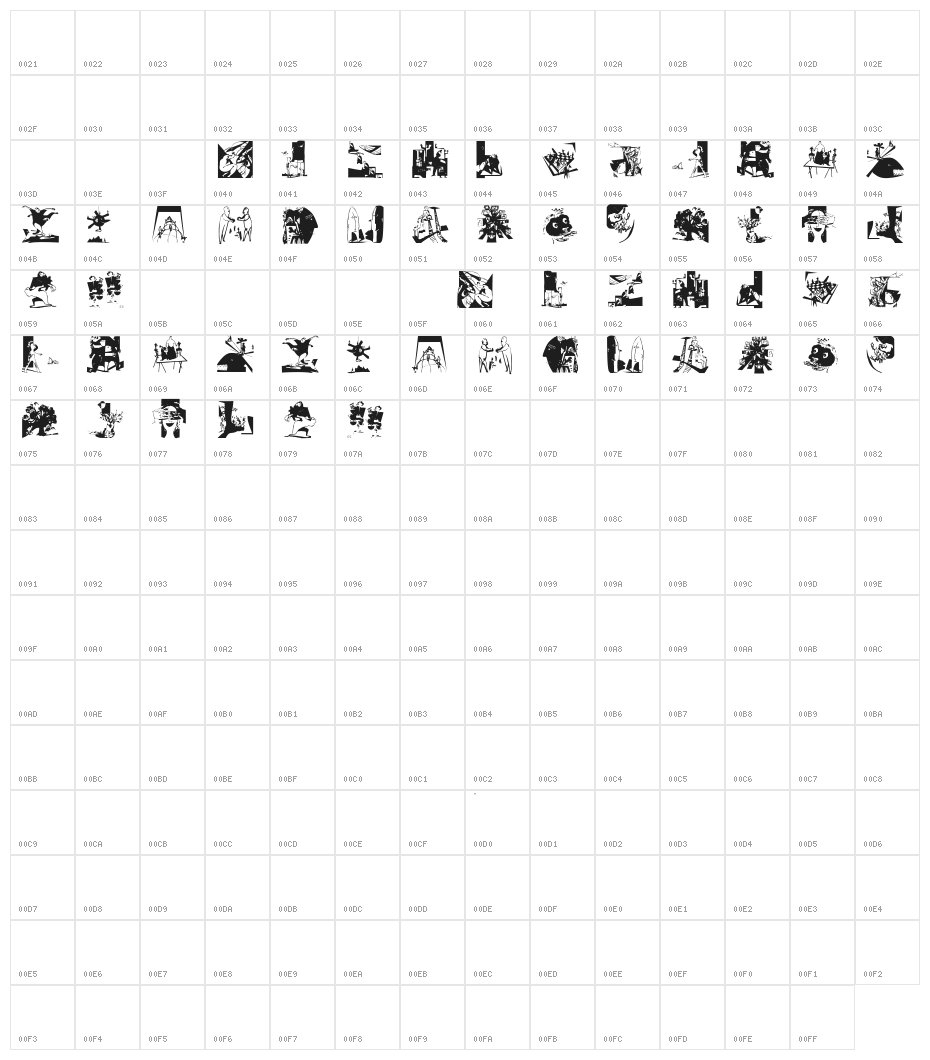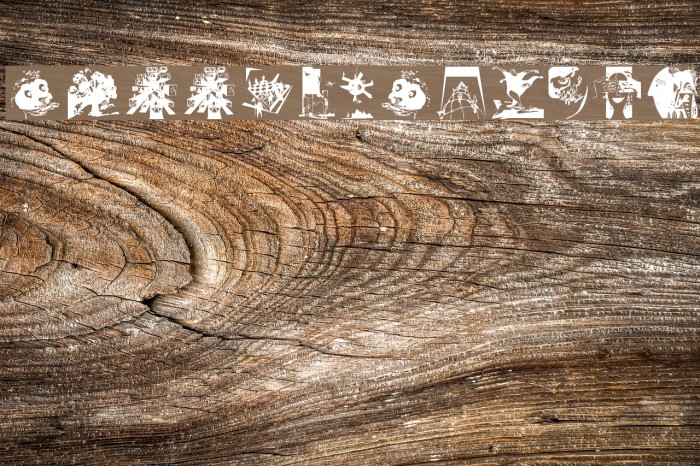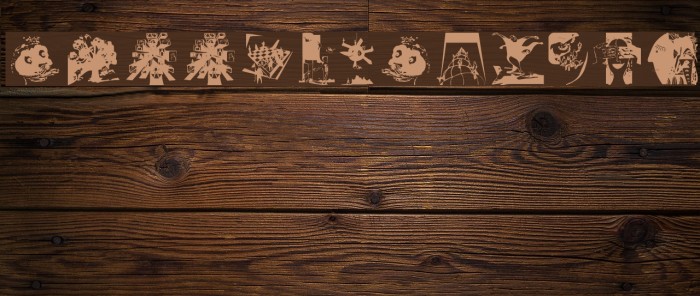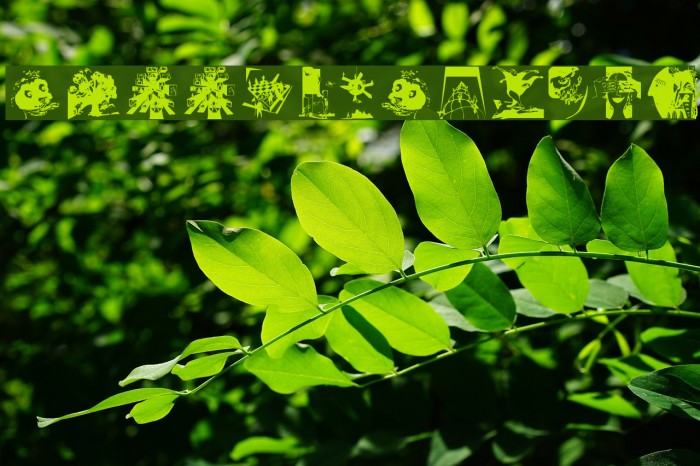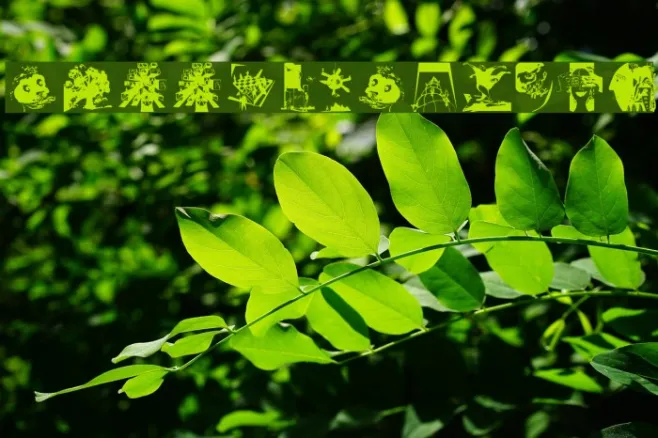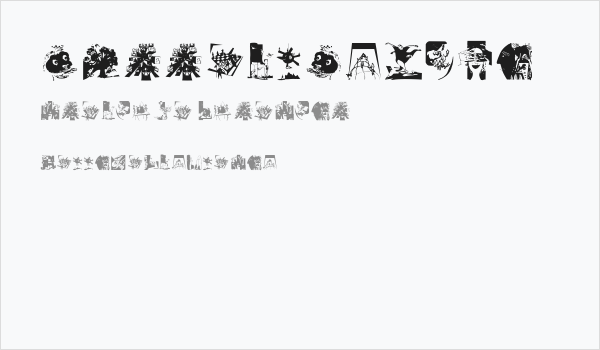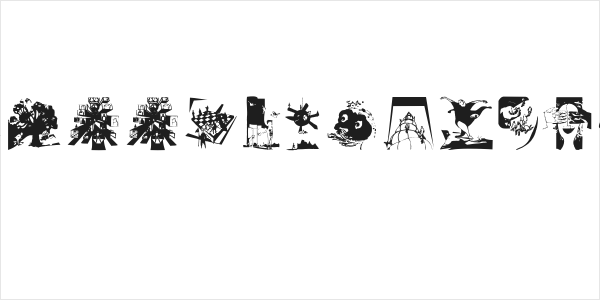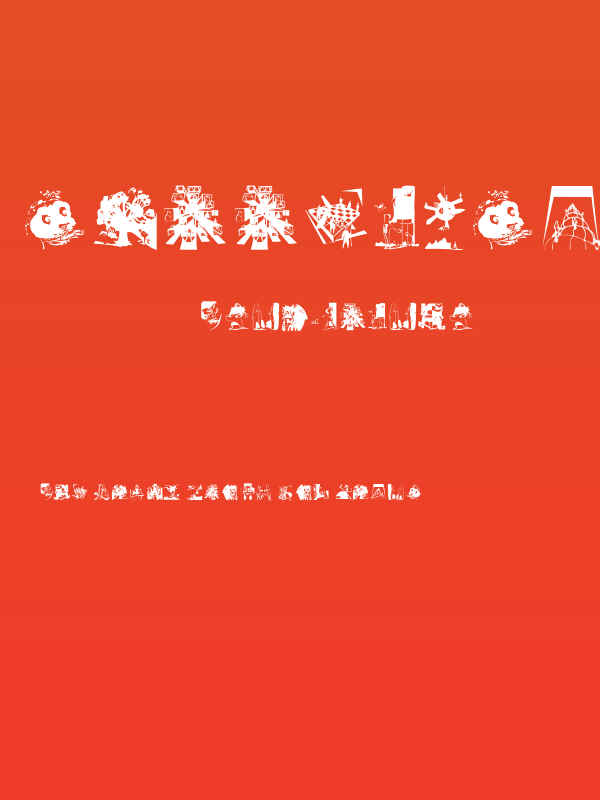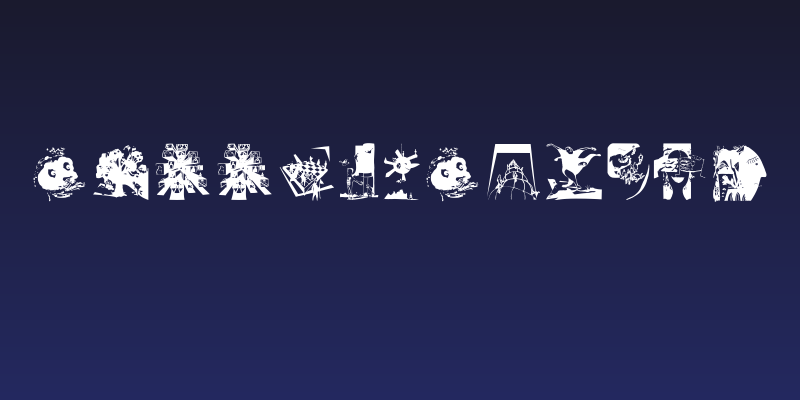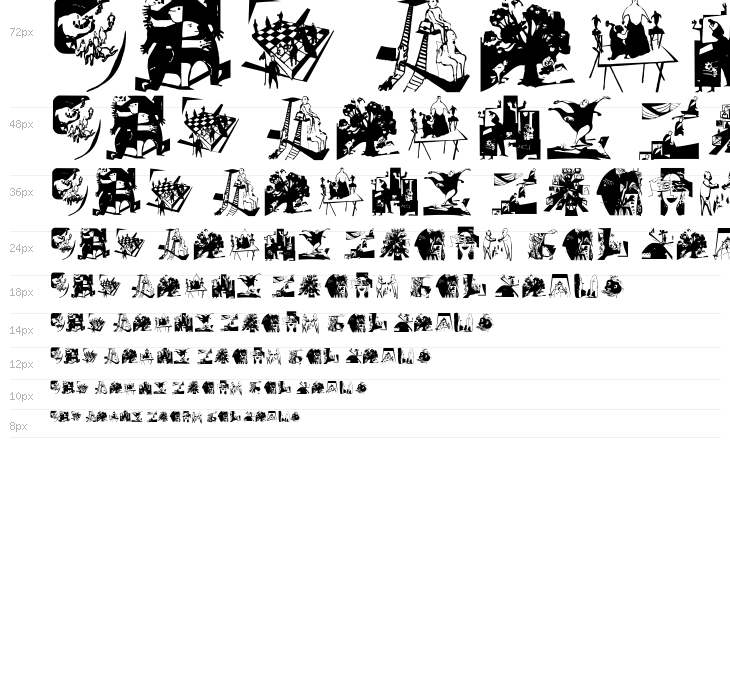
SurrealsmKTwo Font
SurrealsmKTwo Description
This font is a highly decorative and artistic typeface that incorporates surreal and abstract imagery within each character. Each letter is uniquely designed with intricate illustrations that blend seamlessly into the letterforms, creating a visually captivating experience. The font features a mix of bold and delicate lines, with varying levels of detail that add depth and complexity. The characters are filled with imaginative scenes and figures, making it a perfect choice for projects that require a touch of creativity and uniqueness. The overall style is reminiscent of surrealist art, with a playful yet sophisticated aesthetic.
| Overall Style | Surreal, Artistic, Decorative |
| Use Case | Logos, Posters, Album covers |
| Proposed Projects | Ideal for artistic posters, album covers, creative branding, and any project that seeks to incorporate a unique and imaginative style. |